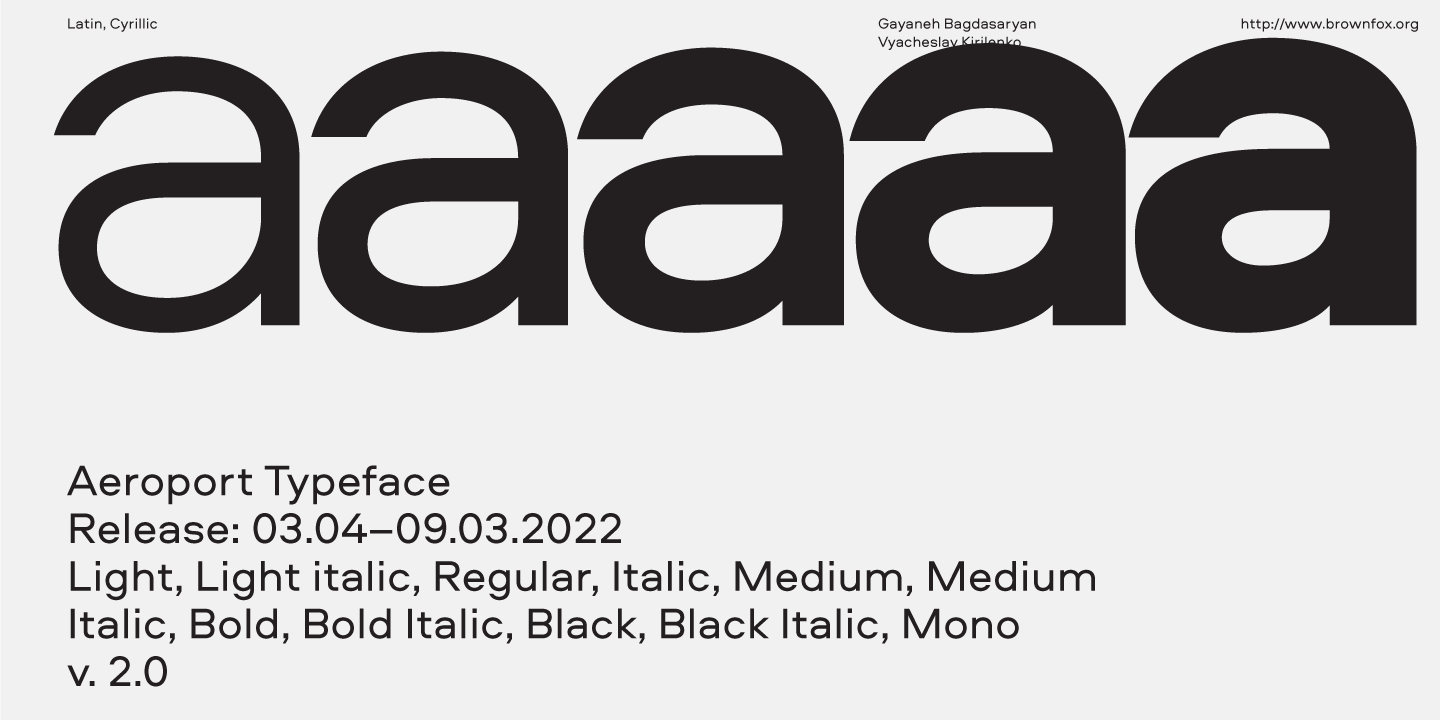
Aeroport Font is perfect for airline company branding, airport wayfinding systems, aviation industry logos, travel agency materials, flight booking interfaces, aerospace engineering documentation, pilot training manuals, aircraft maintenance signage, aviation museum displays, and international travel campaign graphics.
Aeroport Font is exciting because it embodies the precision and international sophistication of modern aviation through its streamlined letterforms that capture the technical excellence and global connectivity of air travel, creating an immediate sense of professional reliability and worldwide accessibility.
The Aeroport Font family includes Regular, Bold, Light, Departure, Arrival, and Terminal variants, each maintaining the distinctive aviation character while offering different weights and travel-inspired styles for professional aerospace design applications.
Take flight with professional aviation typography using Aeroport Font Free Download. This expertly engineered typeface brings the precision and international sophistication of modern aviation into contemporary design, featuring letterforms that embody the technical excellence and global connectivity that defines air travel. The font's streamlined character and professional reliability make it perfect for airlines, airports, and aviation companies seeking to communicate safety, efficiency, and the seamless international experience that modern travelers expect.
Aeroport Font excels in transportation and international business applications where clarity and professional credibility are paramount. Its distinctive character draws inspiration from airport signage and aviation communication systems, making it ideal for airlines, travel companies, and international organizations targeting global travelers who value efficiency, safety, and professional service in their aviation experiences.
The development of Aeroport Font involved collaboration with aviation communication experts and international signage specialists, ensuring each character meets the stringent legibility requirements of airport environments and international travel contexts. This professional approach creates letterforms that perform flawlessly under pressure, maintaining perfect readability in both emergency situations and routine travel communications.
For designers working with aviation companies, international travel brands, or transportation organizations, Aeroport Font provides exceptional clarity and global professionalism. It pairs seamlessly with aviation imagery, complements both modern and traditional airline aesthetics, and maintains its precision across all applications, from large terminal displays to detailed boarding pass information.
Whether you're creating airline brand identities, airport signage systems, travel booking interfaces, or aviation marketing materials, Aeroport Font delivers the professional aviation voice that resonates with international travelers and aviation professionals who demand the highest standards of safety and service. Its combination of technical precision and global accessibility makes it an essential tool for any project requiring the ultimate in aviation communication reliability and international travel sophistication.